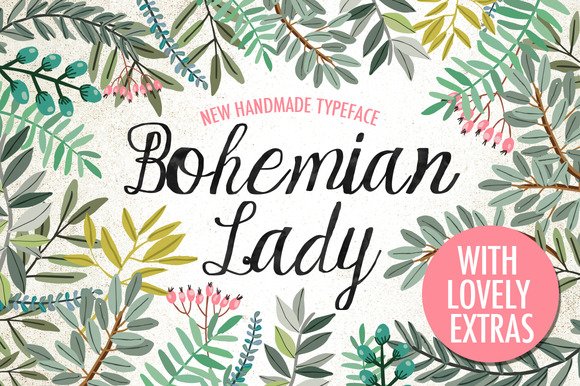
Bohemian Lady Font
Welcome Bohemian Lady! A hand-lettered font with lovely and purrrfffect extras! Imperfect and charismatic, combines very well with retro designs and vintage compositions. The EXTRAS! 45 Hand drawn illustrations, with plants, flowers, leaves and cats!